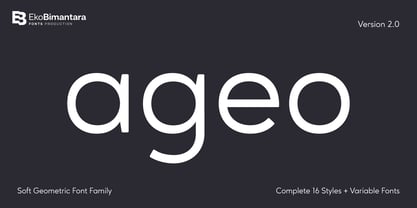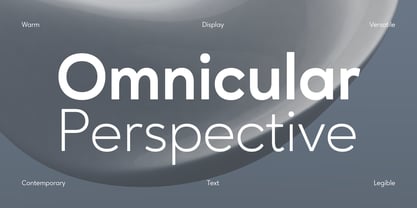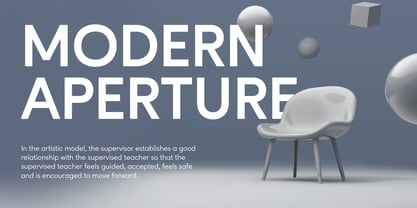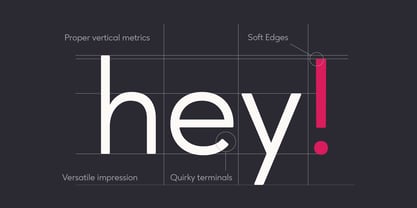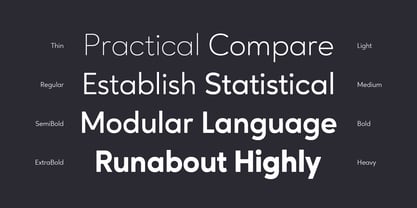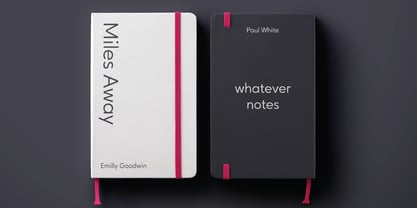
Ageo Font
Ageo Font is perfect for modern corporate branding, clean web design, contemporary logos, minimalist marketing materials, tech startups, professional presentations, sleek app interfaces, sophisticated business communications, elegant packaging design, and cutting-edge digital platforms.
What makes Ageo Font so exciting is its perfect geometric precision that combines mathematical clarity with humanist warmth, creating typography that communicates with both technical accuracy and emotional accessibility. This exceptional sans-serif typeface embodies contemporary design excellence and functional sophistication, delivering visual communication that speaks the language of modern professionalism.
The Ageo Font family includes thin, light, regular, medium, bold, and black weights, complete with matching italics and condensed variations, providing designers with a comprehensive typographic system that covers every design challenge from delicate text to powerful headlines.
Experience geometric perfection with Ageo Font Free Download, a masterfully engineered sans-serif typeface that defines excellence in contemporary typography design. This exceptional font represents the evolution of geometric typefaces, offering designers a tool that combines mathematical precision with human warmth for superior visual communication across all applications.
The precisely crafted letterforms of Ageo Font showcase geometric elegance with contemporary character that creates instant recognition of quality and modern sophistication. Each character displays meticulous attention to maintaining the geometric clarity that defines technical precision while ensuring humanist warmth and professional readability. The font's balanced proportions and optimized spacing contribute to its modern appearance and versatile functionality.
Leading brands and design agencies worldwide trust Ageo Font for projects requiring contemporary sophistication and geometric excellence. The comprehensive character set includes Latin extended glyphs, OpenType features, mathematical symbols, currency signs, and technical characters that provide complete support for international projects and complex typographic requirements.
The universal appeal of Ageo Font ensures outstanding performance across all platforms and design applications. Whether developing modern brand identities, creating responsive web interfaces, or designing sophisticated marketing campaigns, this remarkable typeface delivers the precision and visual impact that contemporary brands need to communicate effectively in competitive global markets.